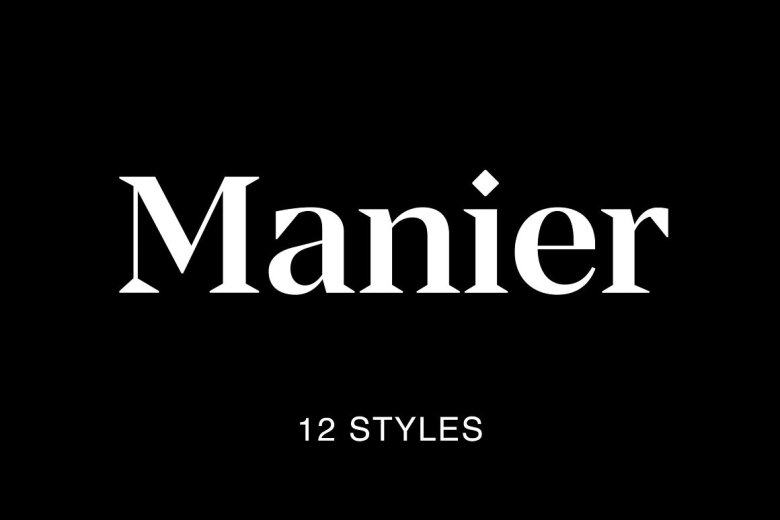
Manier Font
Manier is an elegant modern display font family, inspired by both contemporary and transitional fonts. Featuring high height, contemporary proportions and sharp serifs as well as an intense contrast between strokes with vertical stress – it makes an excellent choice for posters, headlines, titles or branding while being suitable for small text such as articles.
Manier Serif Font Family